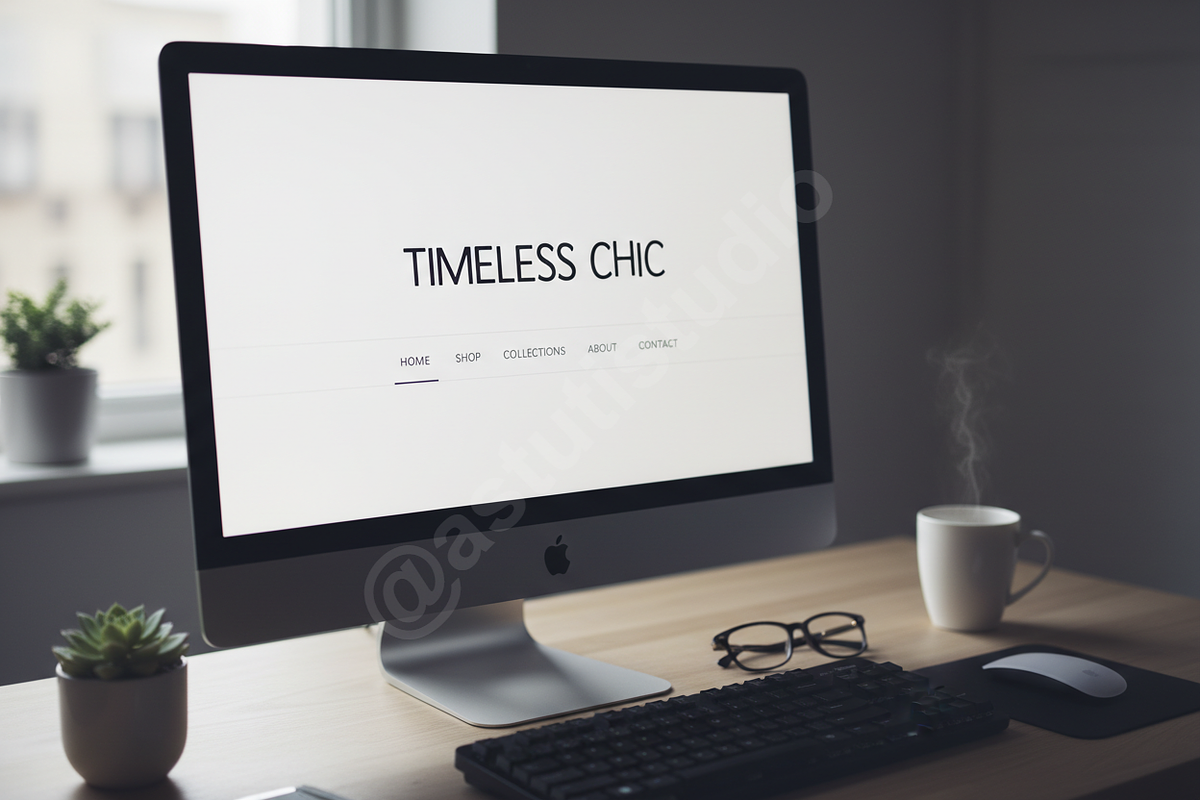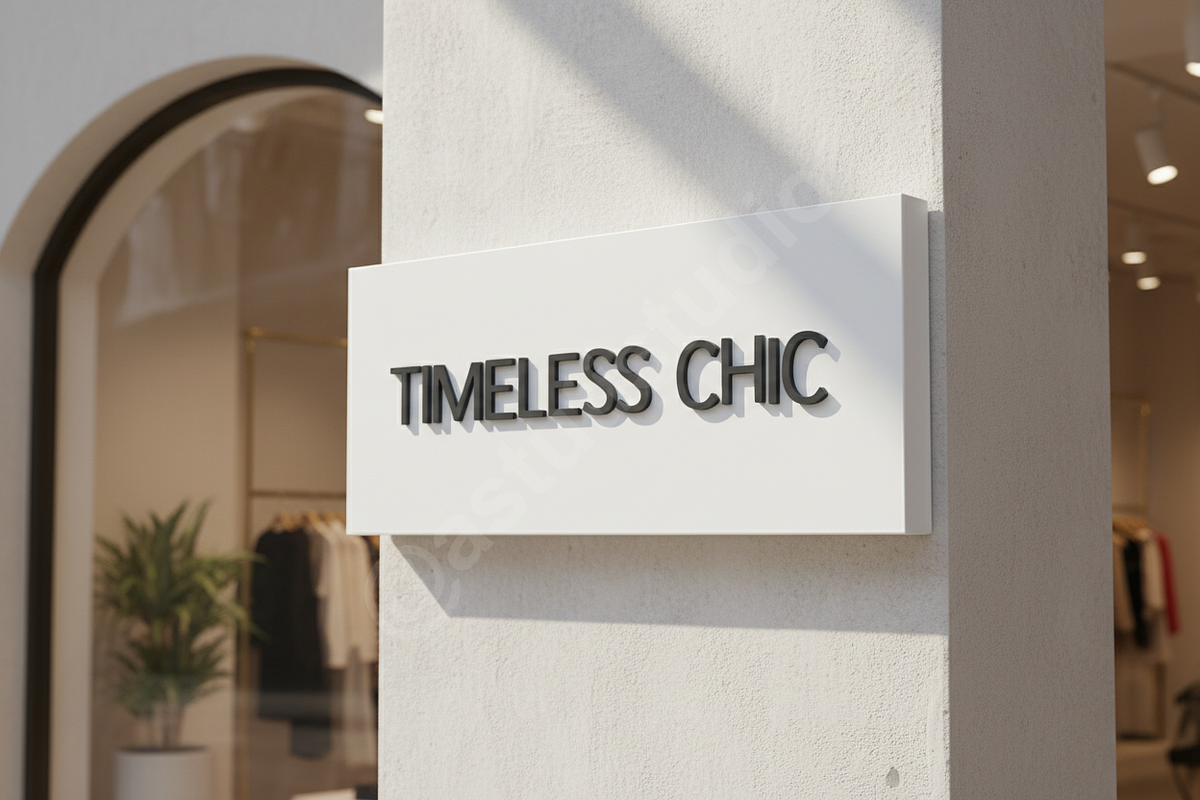
Fuquli — Elegant High-Contrast Serif
Fuquli is a meticulously crafted serif typeface designed for the discerning creative. Balancing classic structure with modern refinement, Fuquli brings an aura of sophisticated elegance to any project. Its high contrast and delicate curves make it the definitive choice for luxury sectors seeking timeless visual appeal. Perfect for elevating major magazine spreads, high-fashion labels, and premium digital campaigns, including high-impact social media posts.
- Luxury High-Contrast Serifs: Optimized for large display sizes and high-end print collateral.
- Extensive Ligatures & Alternates: Over 150 unique stylistic variations for maximum design flexibility and custom logo creation.
- Multi-Language Support: Comprehensive character set covering essential European languages for global branding initiatives.
- Optimized for Web & Print: Clean, legible rendering across all platforms, ensuring stunning legibility even when scaled down.
- Perfect for Social Media: High-impact legibility scaled for Instagram titles, Pinterest graphics, and engaging video overlays.
- Full set of Uppercase & Lowercase letters
- Numerals, Punctuation, and comprehensive Latin-1 multilingual support